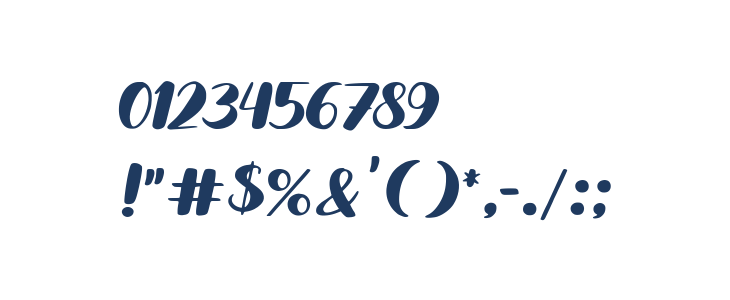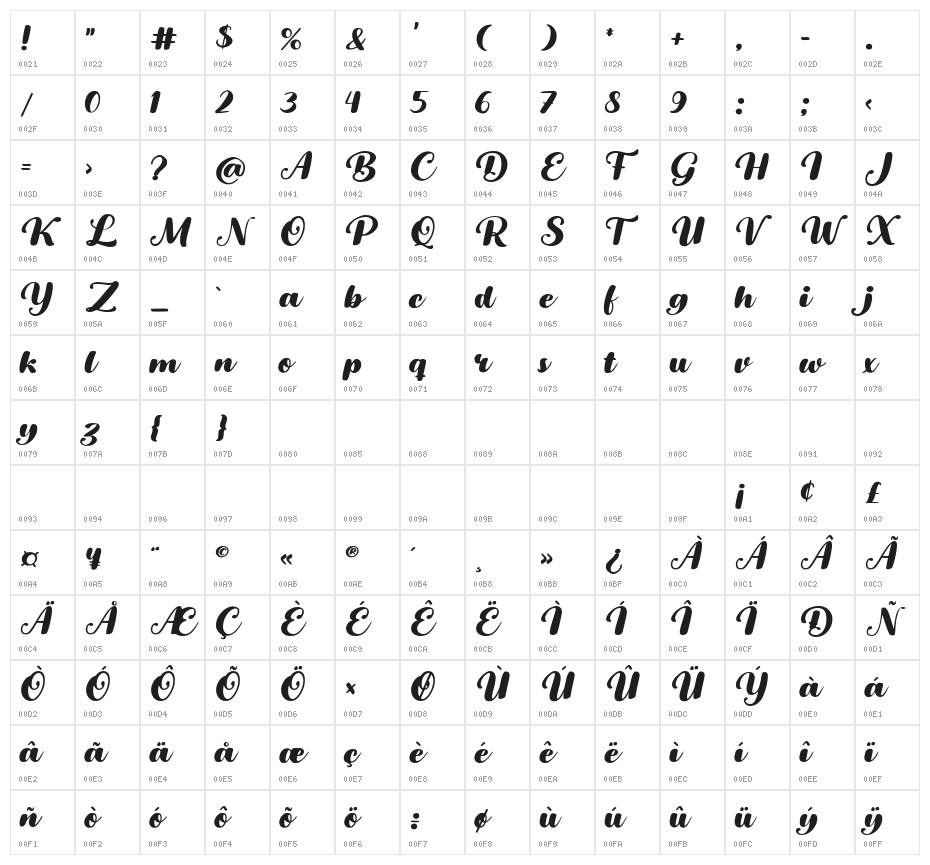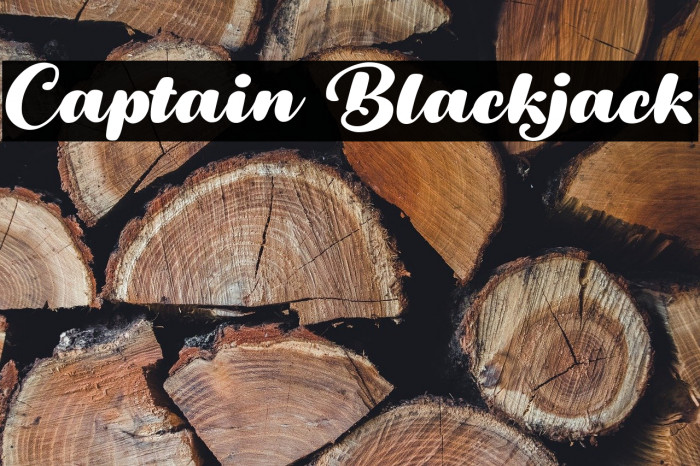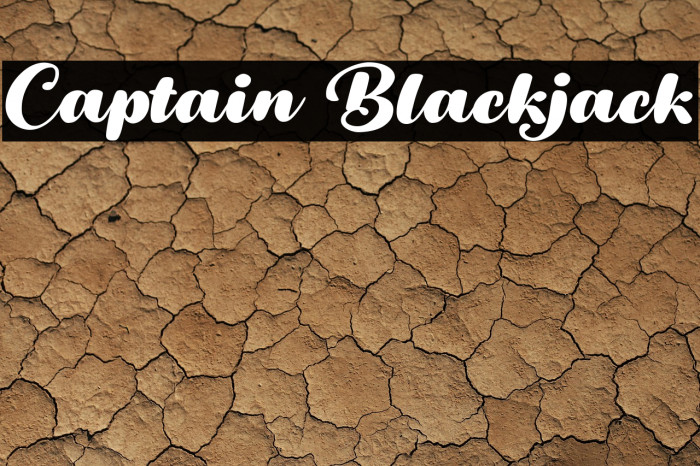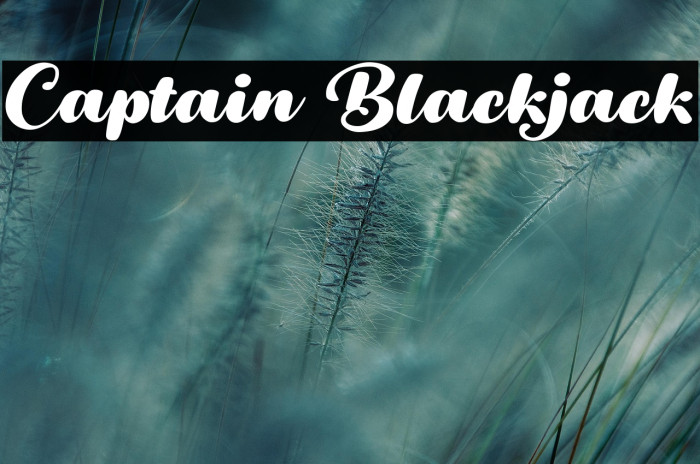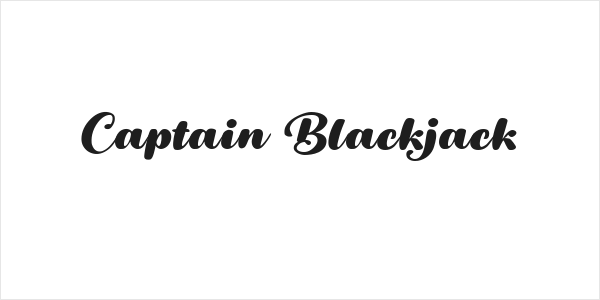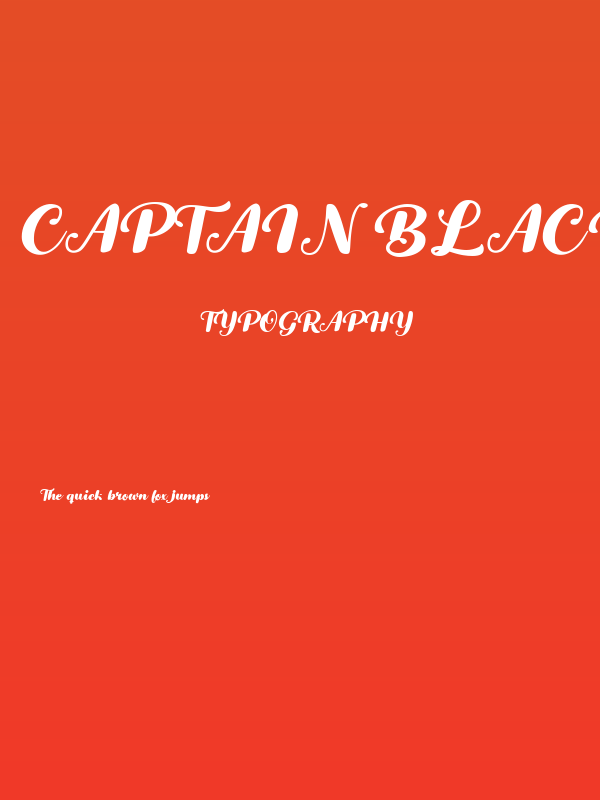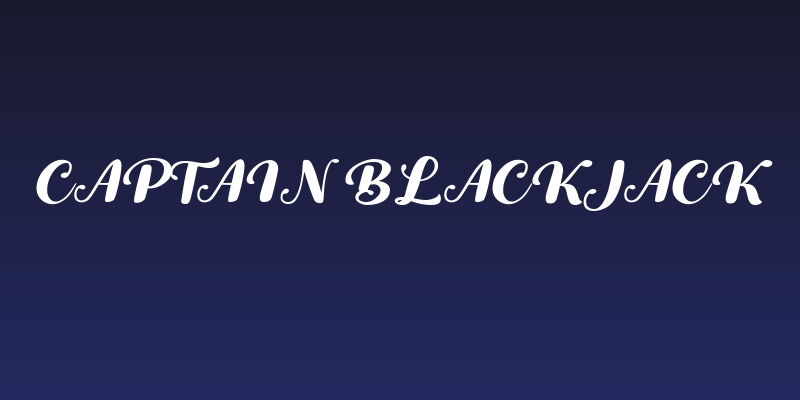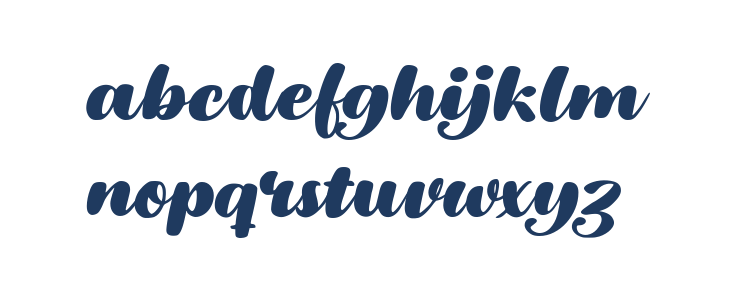
Captain Blackjack Font
Captain Blackjack Description
This font exudes a bold and elegant script style, characterized by its flowing, cursive letters that convey a sense of sophistication and flair. The uppercase letters are ornate, with sweeping curves and flourishes that add a touch of drama. The lowercase letters maintain a consistent flow, enhancing readability while retaining the decorative essence. Numbers and special characters are crafted with the same attention to detail, ensuring a cohesive look across all text elements. The overall design is both modern and timeless, making it suitable for a variety of creative applications.
| Overall Style | Elegant, Decorative |
| Proposed Projects | Ideal for wedding invitations, branding, logo design, and elegant packaging. |